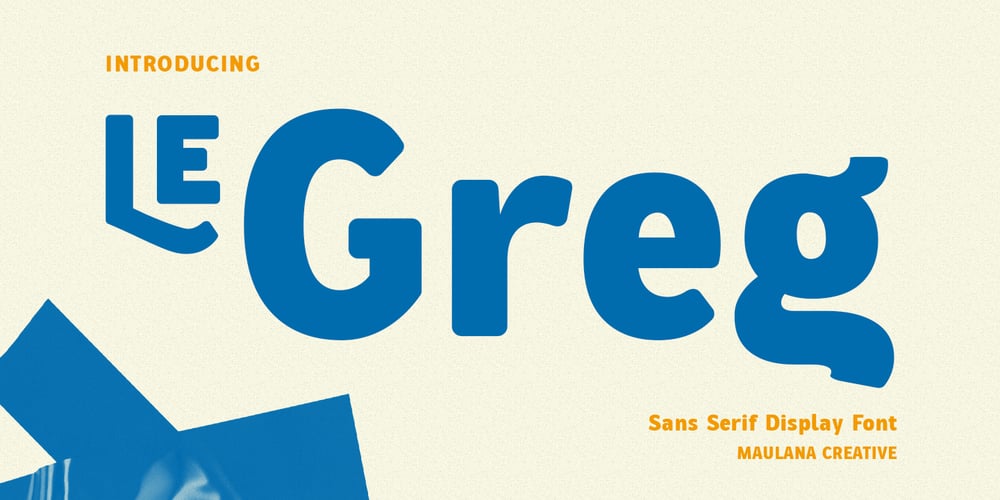
Le Greg Font Family was designed by Gilang Maulana and published by Maulana Creative. Le Greg contains 1 styles and family package options. Le Greg is a modern soft sans display font. With bold stroke, fun character with a bit of ligatures and ton of stylistic alternates. To give you an extra creative work. Le Greg font support multilingual more than 100+ language. This font is good for logo design, Social media, Movie Titles, Books Titles, a short text even a long text letter and good for your secondary text font with sans or serif. Make a stunning work with Le Greg font.Cheers,Maulana Creative